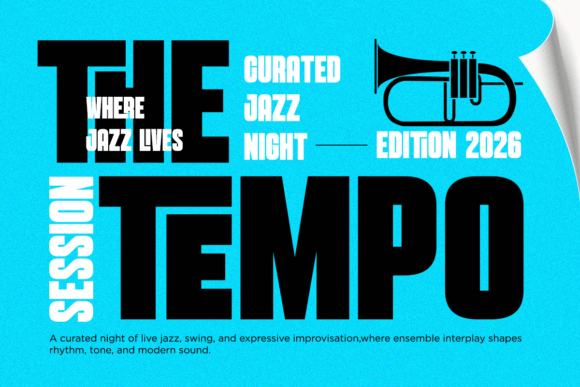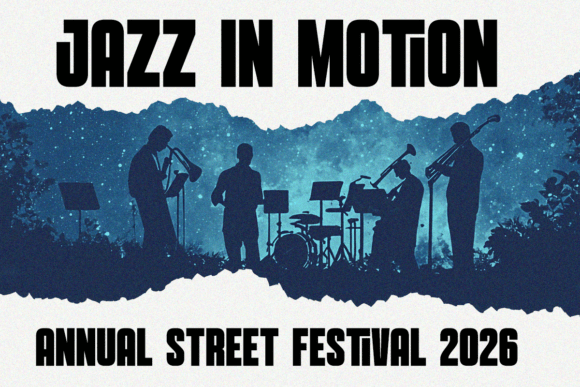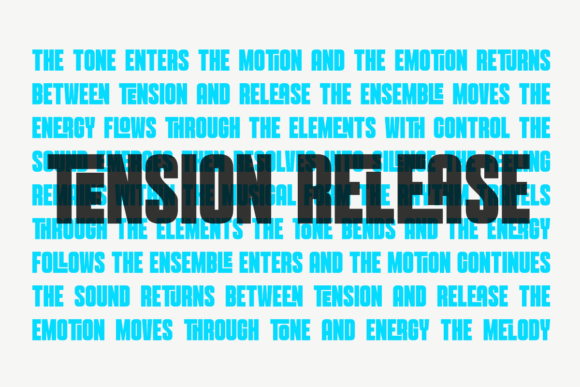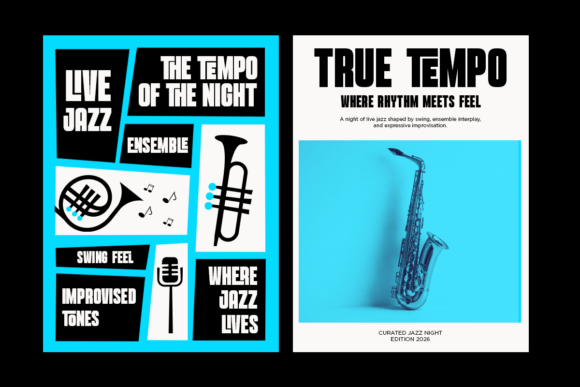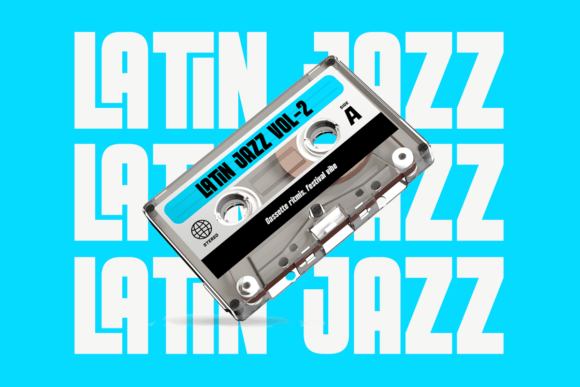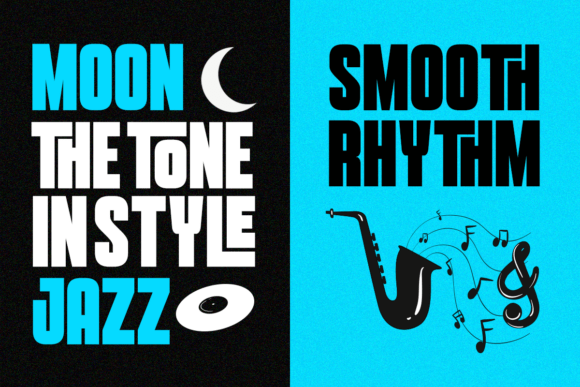
Bolaro Font: Elevate Your Designs with Bold Confidence
In the world of typography, a bold and confident font can make all the difference in capturing the attention of your audience. Introducing Bolaro, a bold condensed display font designed to deliver strong visual impact, sharp character, and modern confidence. Inspired by contemporary editorial design and urban typography, Bolaro is the perfect typographic solution for designers, crafters, and marketers looking to elevate their projects with a powerful and striking presence.
Key Features of Bolaro Font
- Powerful Vertical Proportions: Bolaro’s vertical proportions are carefully crafted to create a strong and commanding presence, making it perfect for headlines, titles, and promotional materials.
- Clean Geometry: The font’s clean and geometric design ensures a crisp and modern look, suitable for a wide range of creative applications.
- Striking Readability: Bolaro’s unique design ensures excellent readability across digital and print media, making it ideal for use in various formats, from posters and packaging to social media content and web banners.
- Stylish Ligatures: The font features stylish ligatures, adding an extra touch of elegance and sophistication to your designs.
- Balanced Spacing: Bolaro’s carefully constructed letterforms and balanced spacing ensure professional results and optimal legibility.
Who is Bolaro Font for?
Bolaro is designed for a wide range of creative professionals, including:
- Branding Designers: Create a strong brand identity with Bolaro’s bold and confident presence.
- Creative Studios: Elevate your projects with Bolaro’s dynamic rhythm and strong personality.
- Content Creators: Add a touch of modern confidence to your content with Bolaro’s striking readability and clean geometry.
- Marketing Professionals: Use Bolaro to create impactful visual communication that commands attention across digital and print media.
Use Cases for Bolaro Font
Bolaro is a versatile typographic solution suitable for a wide range of creative applications, including:
- Logo Design: Create a bold and memorable logo with Bolaro’s powerful vertical proportions and clean geometry.
- Posters and Packaging: Use Bolaro to create eye-catching posters and packaging that stand out in a crowded market.
- Advertising and Social Media Content: Elevate your advertising and social media content with Bolaro’s striking readability and dynamic rhythm.
- Headlines and Web Banners: Create bold and attention-grabbing headlines and web banners with Bolaro’s strong character and modern confidence.
- Editorial Layouts and Promotional Campaigns: Use Bolaro to create professional and engaging editorial layouts and promotional campaigns.
Why Choose Bolaro Font?
In today’s competitive design landscape, a bold and confident font can make all the difference in capturing the attention of your audience. With Bolaro, you can:
- Elevate Your Designs: Add a touch of modern confidence and strong personality to your designs with Bolaro’s bold presence.
- Increase Readability: Ensure excellent readability across digital and print media with Bolaro’s striking design.
- Save Time: Use Bolaro’s carefully constructed letterforms and balanced spacing to save time and achieve professional results.
Whether you’re building a strong brand identity, crafting mood boards, or creating engaging content, Bolaro is the perfect typographic solution for designers, crafters, and marketers looking to elevate their projects with bold confidence and strong visual impact.